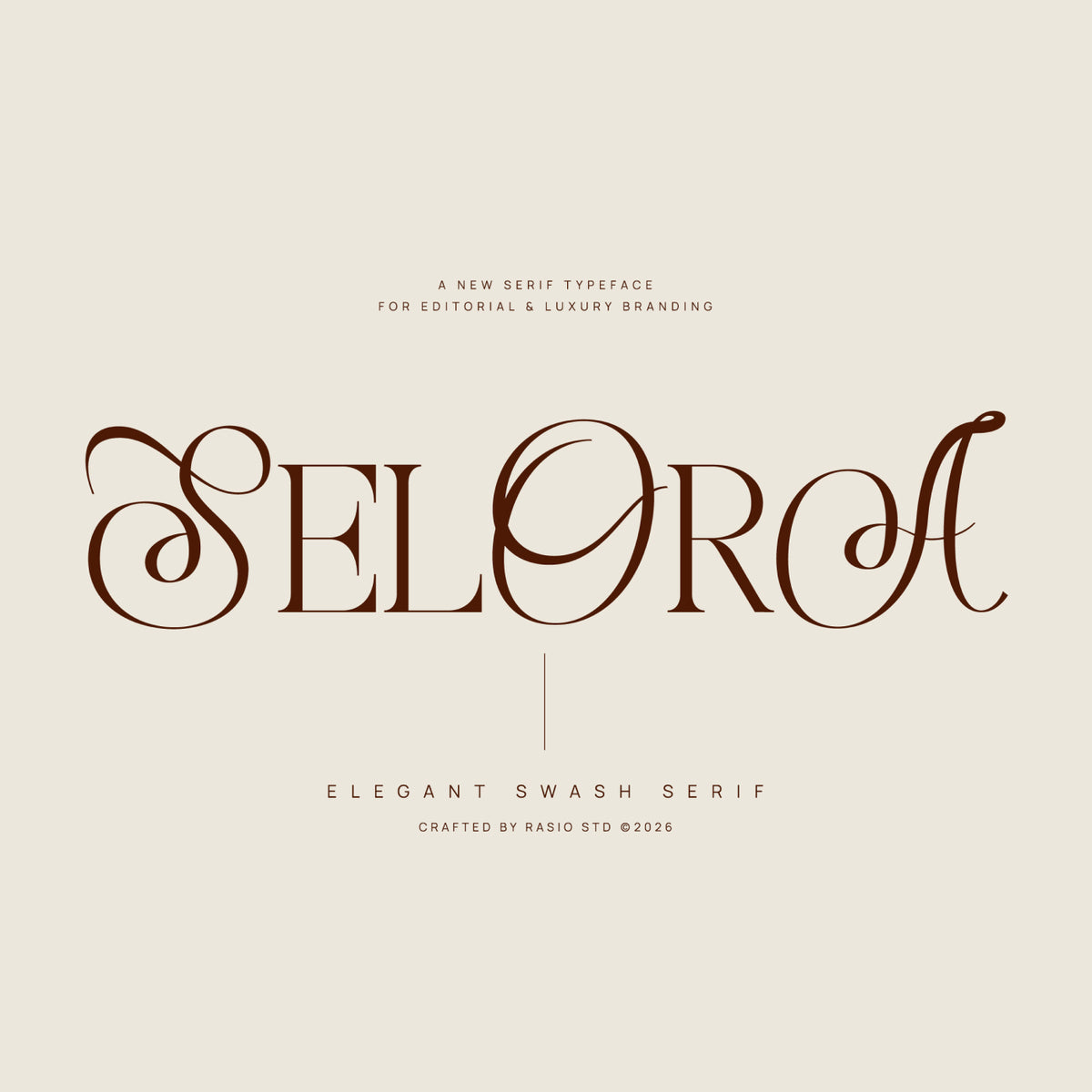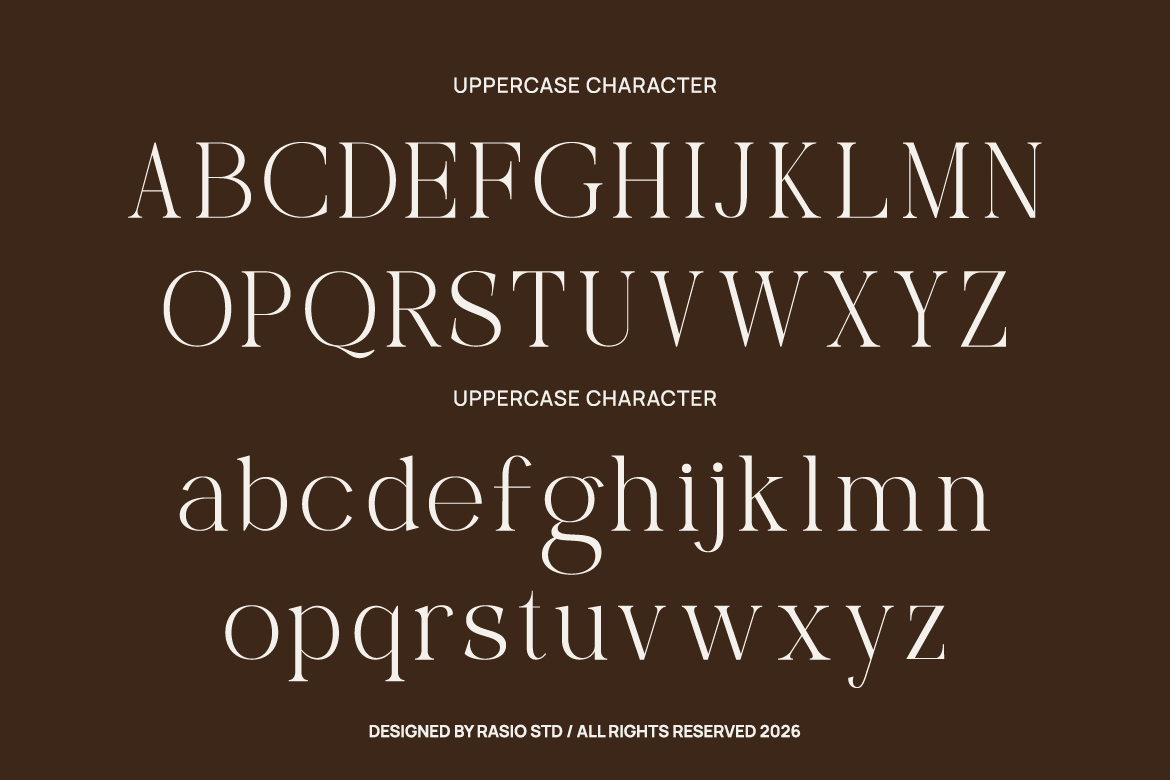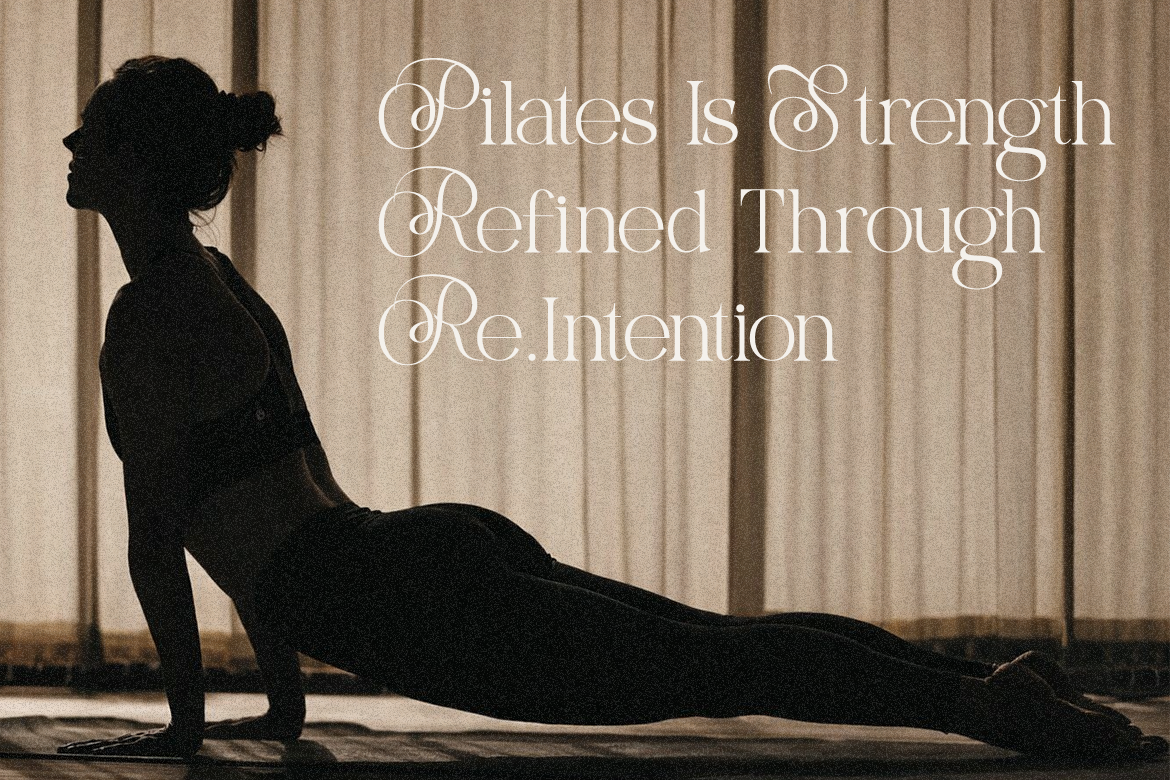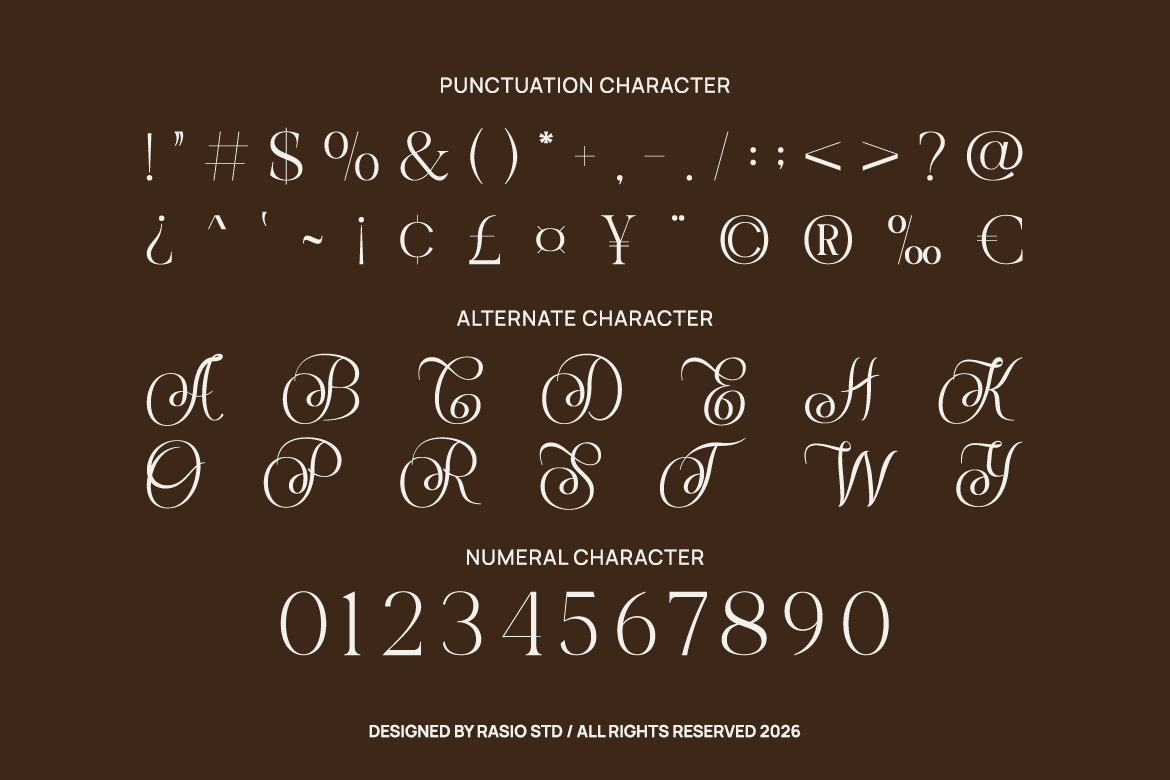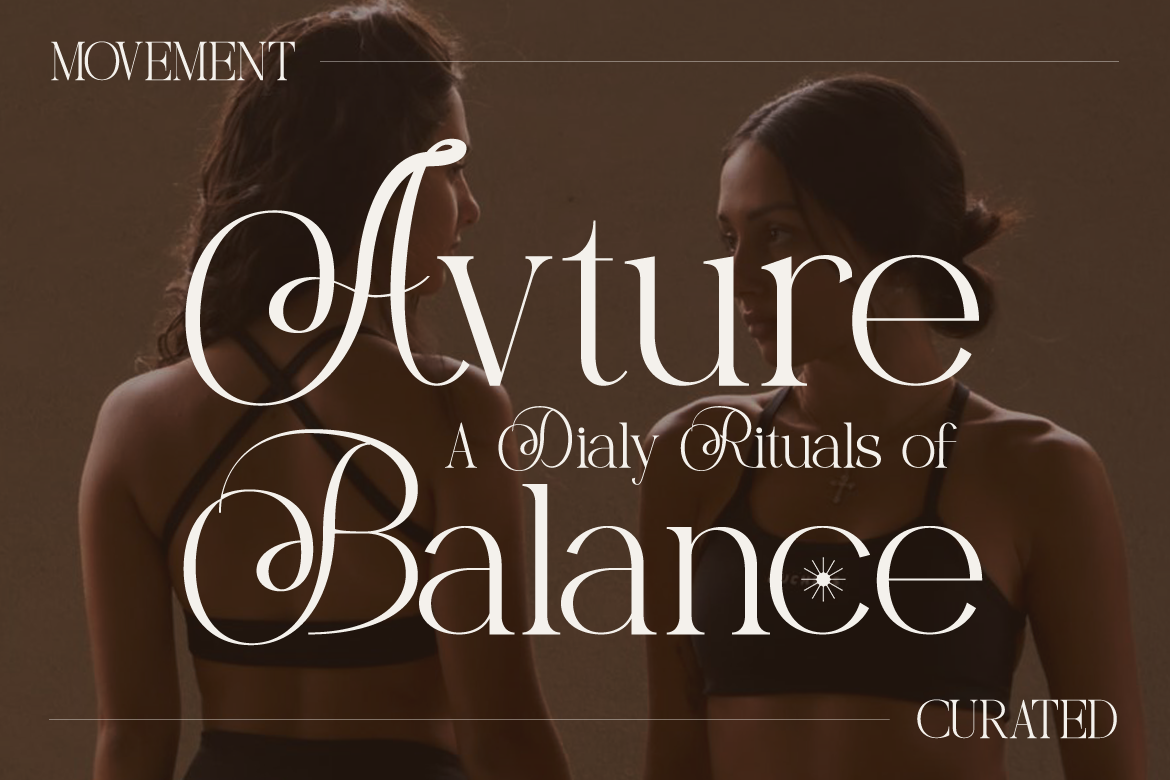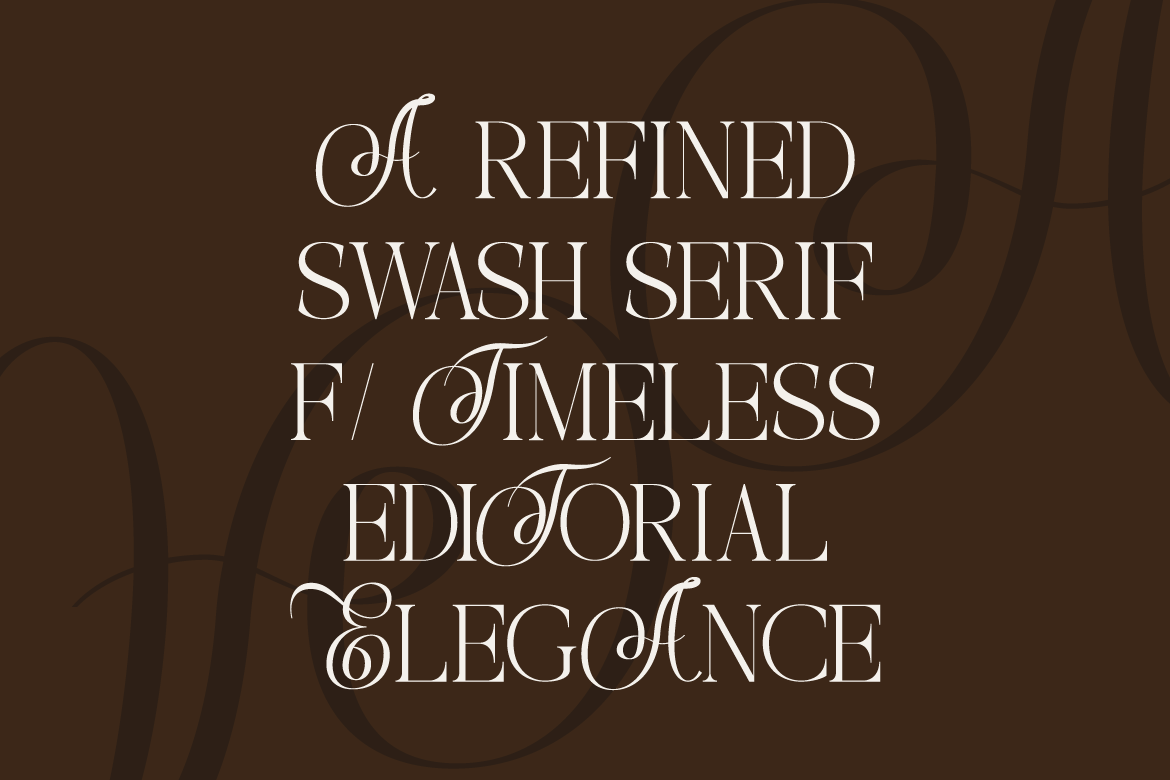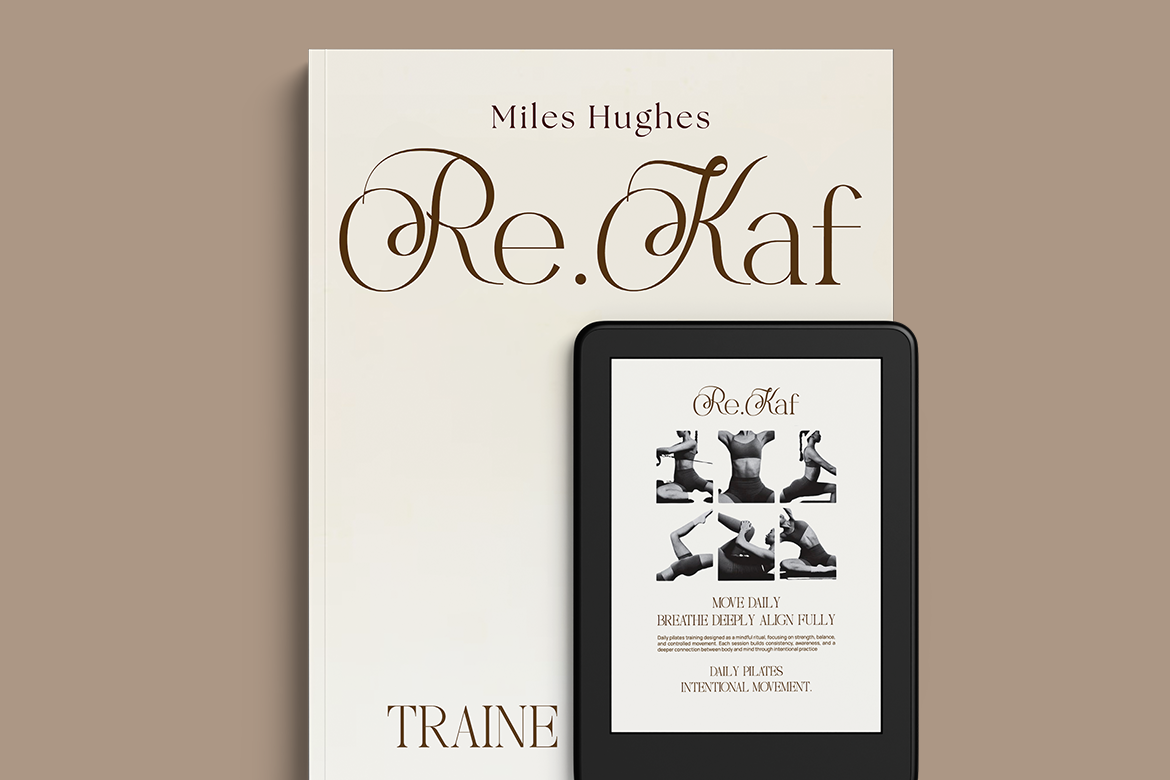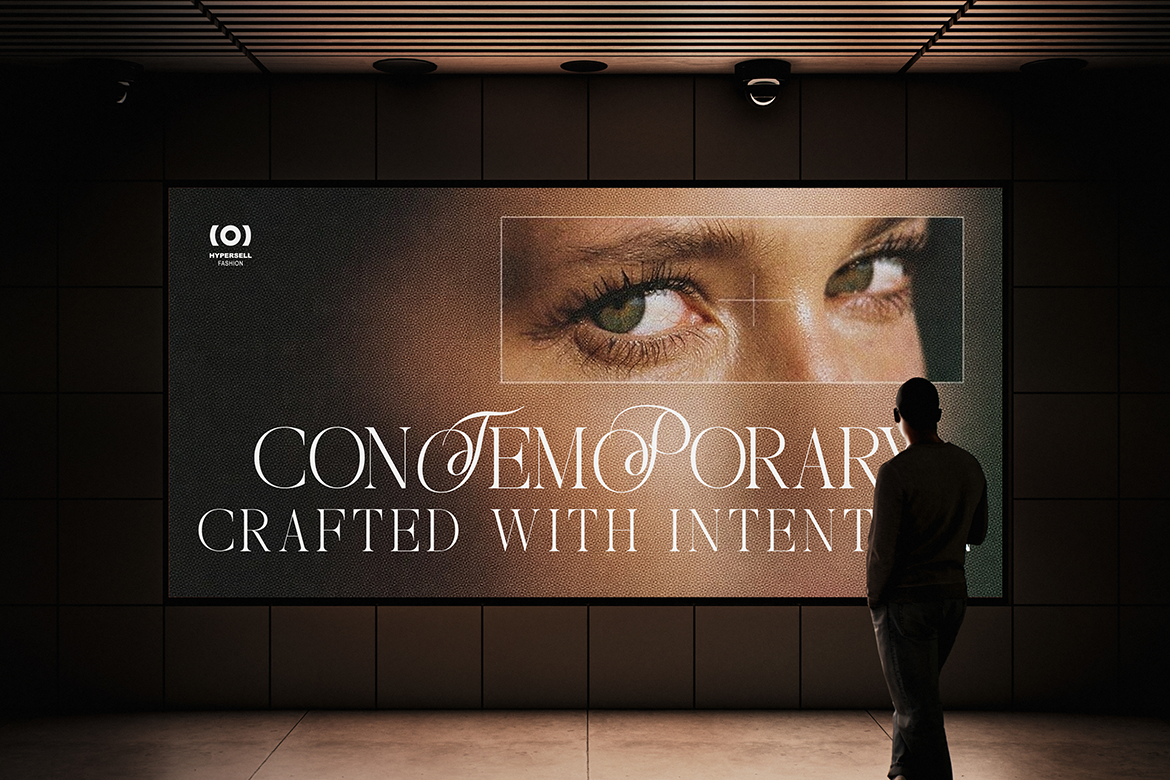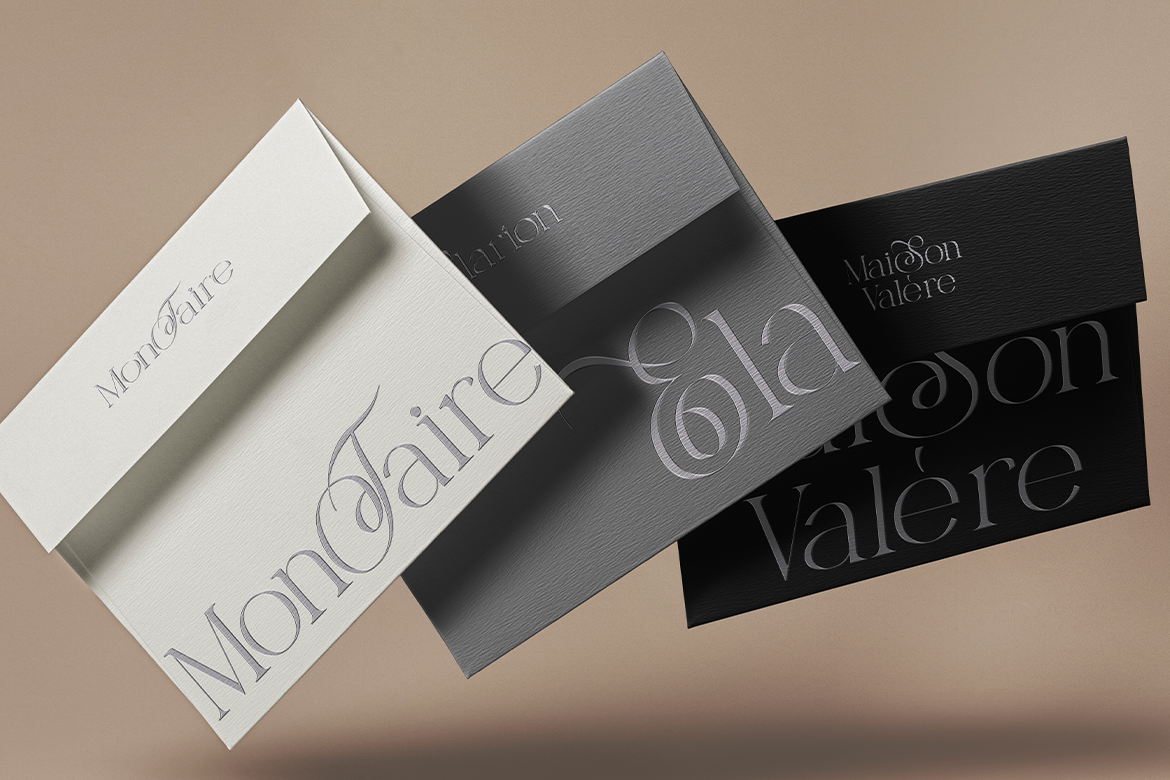
Selora Elegant Swash Serif Font
Selora is a refined swash serif typeface crafted for editorial sophistication and luxury branding. Featuring graceful high-contrast strokes, delicate serifs, and expressive swash alternates, Selora blends classic serif elegance with modern refinement. Its flowing ornamental capitals and stylish curves create a dramatic yet balanced presence, making every headline feel timeless and elevated.
Relevance and Use Cases is perfect for luxury brands, fashion labels, beauty products, editorial magazines, wedding designers, and boutique businesses seeking a refined and expressive typographic identity. It works beautifully for magazine covers, branding systems, logo design, invitations, packaging, social media campaigns, and high-end marketing materials where elegance and visual impact are essential.
Alternate Support
Selora is a swash serif typeface featuring high-contrast strokes, delicate serifs, and swash alternates with ornamental capitals. It is available in OTF, TTF, and WOFF formats, including uppercase and lowercase letters, numerals, punctuation, and alternate character support.